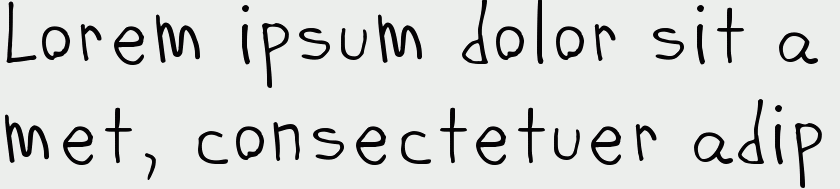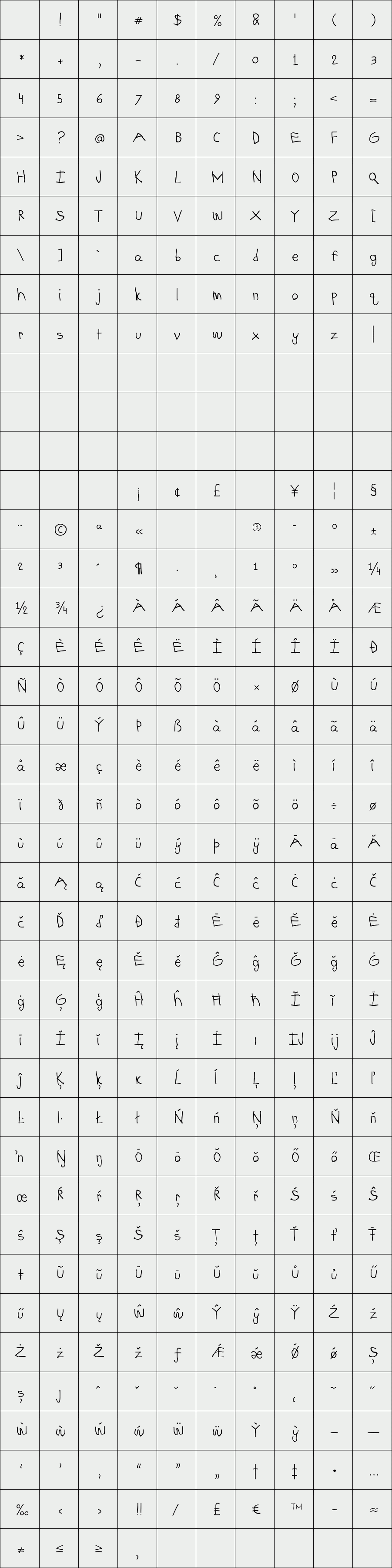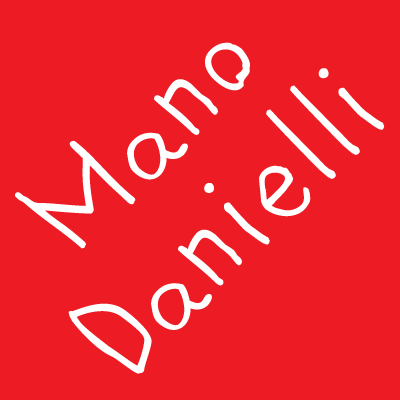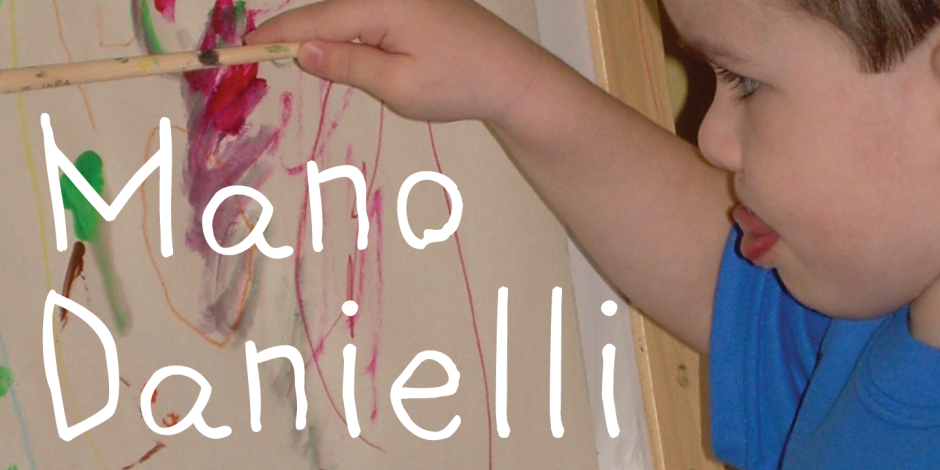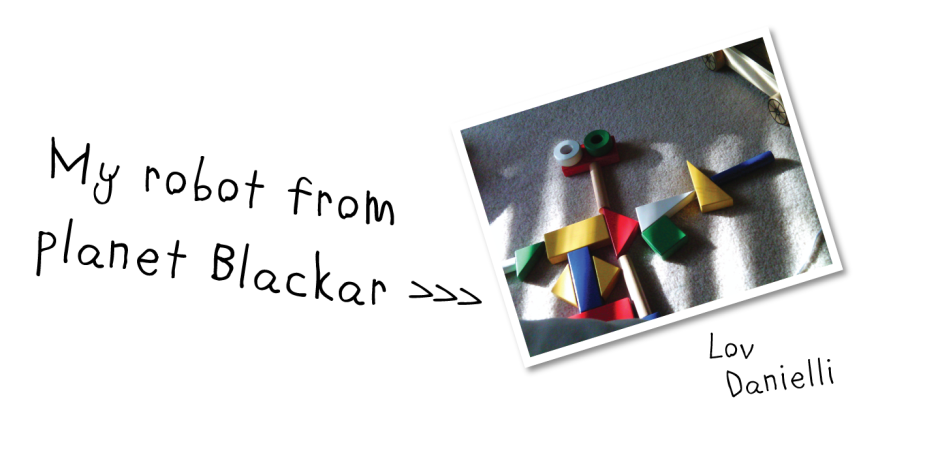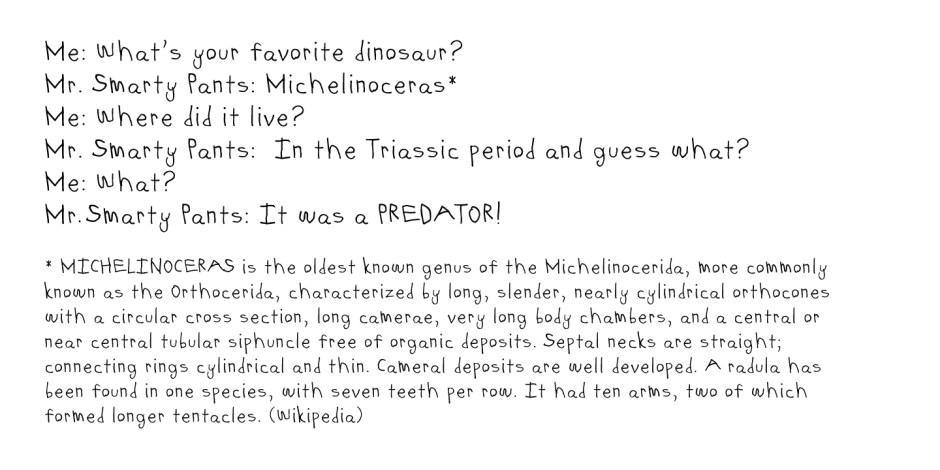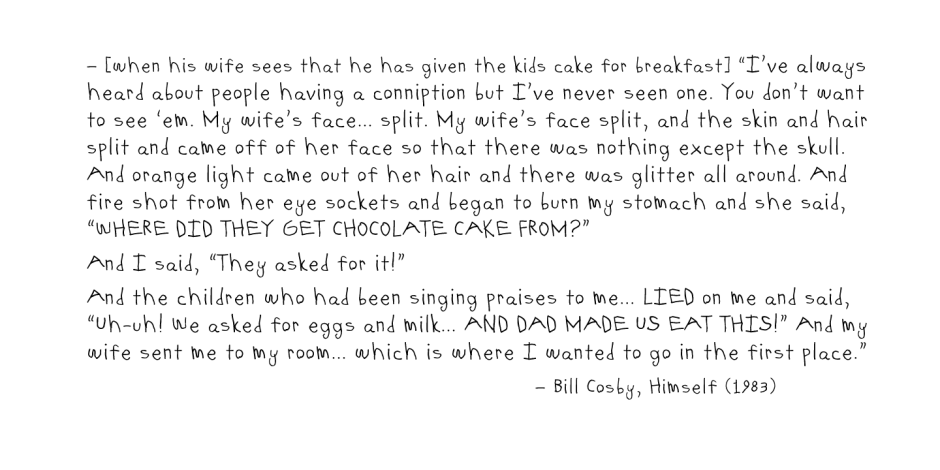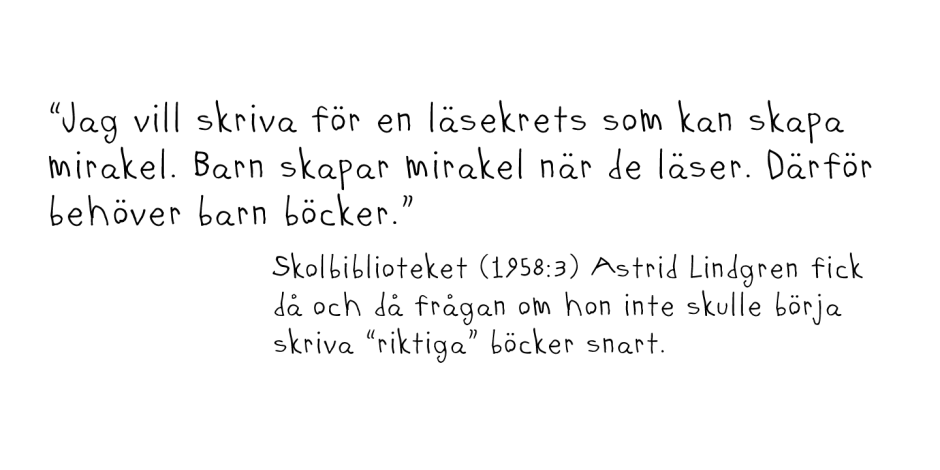
Mano Danielli
“Mama, are you doing letters? I want to do letters too!” Mano Danielli is based on the writing of a 6 year old child. Great for anything that has to do with children - even the inner ones.